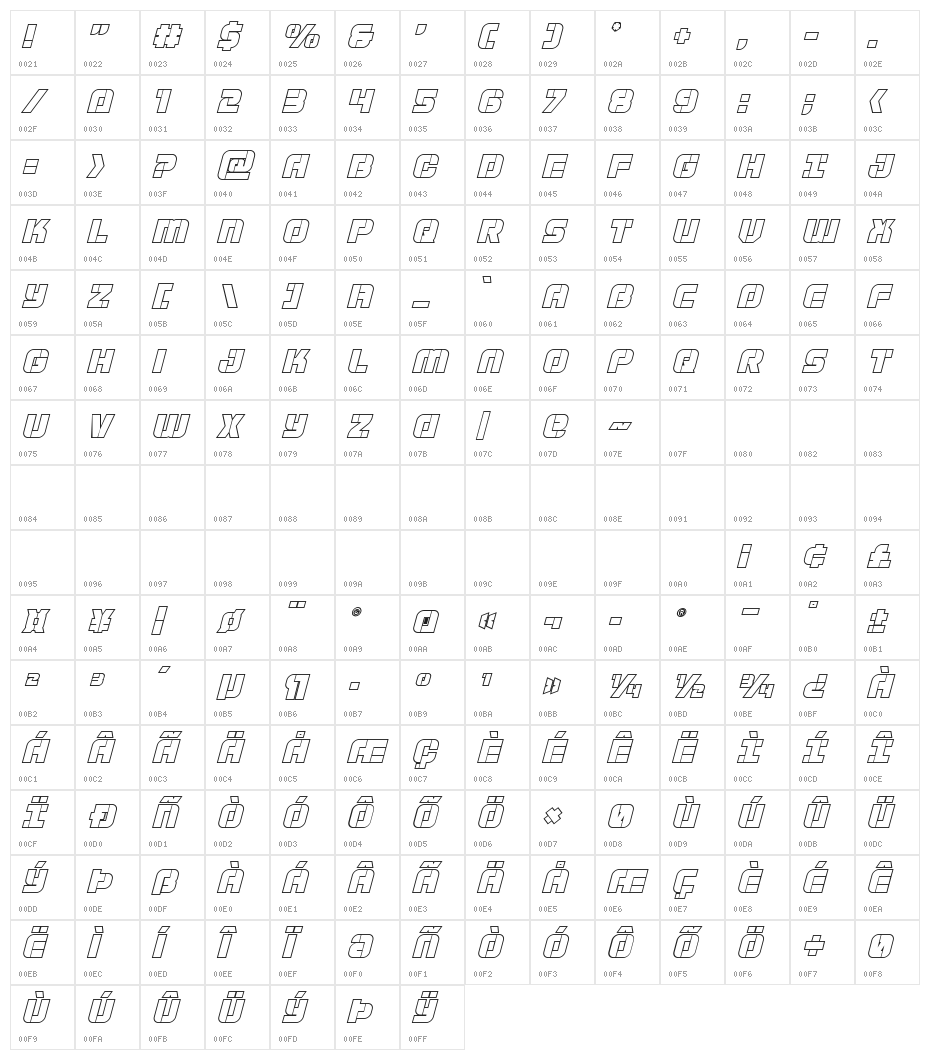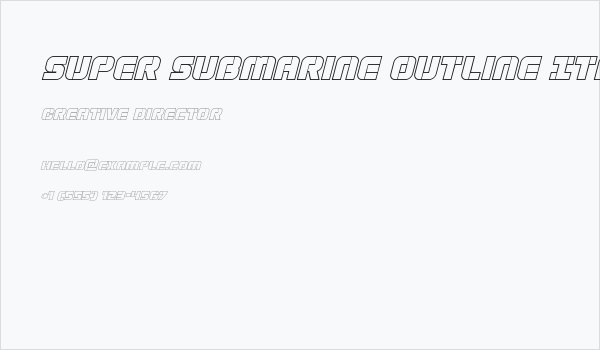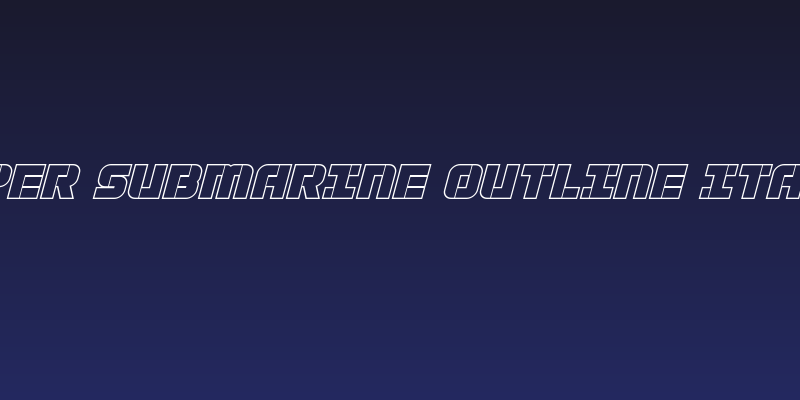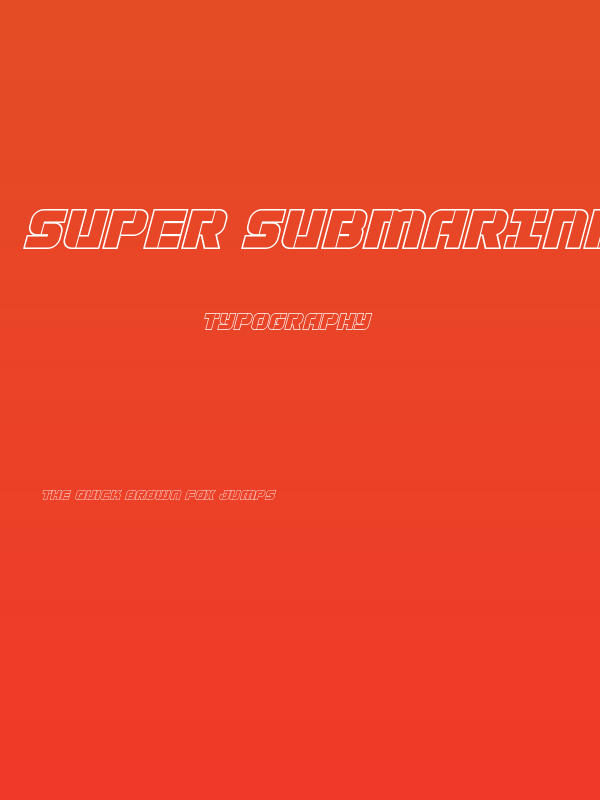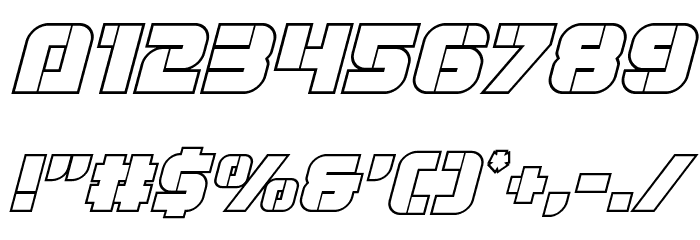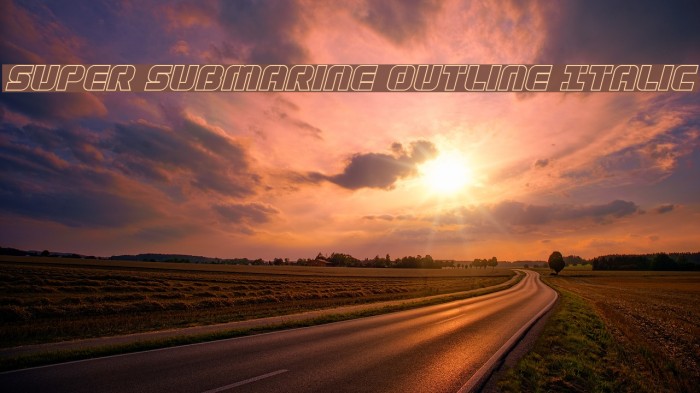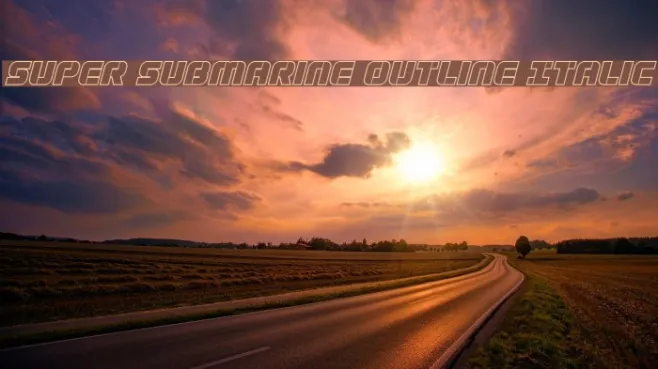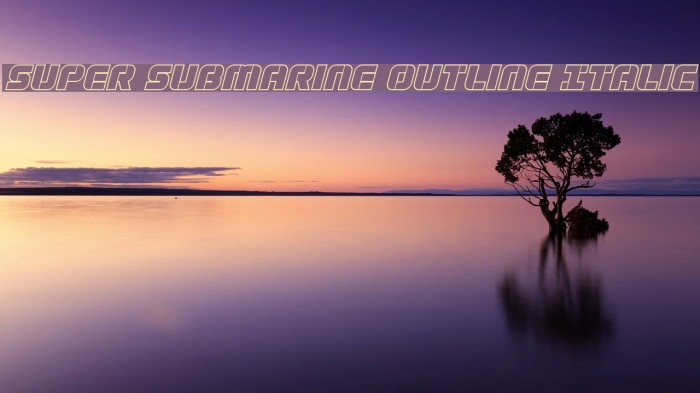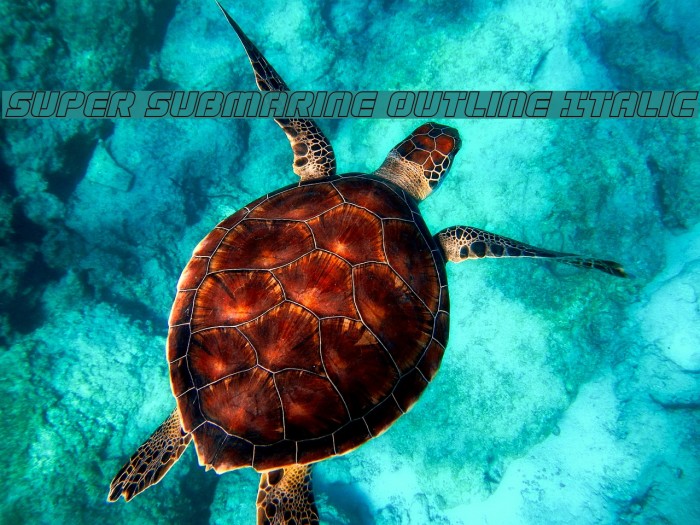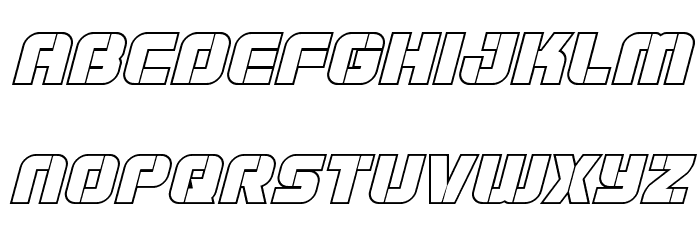
Super Submarine Outline Italic Font
Super Submarine Outline Italic Description
This font features a bold, geometric outline style with a distinct italic slant, giving it a dynamic and modern appearance. The characters are constructed with clean, sharp lines and a uniform stroke width, creating a cohesive and structured look. The uppercase and lowercase letters maintain a consistent design, while the numerals and special characters complement the overall aesthetic. The outline effect adds a sense of depth and dimension, making it suitable for eye-catching designs. Its futuristic and technical vibe makes it ideal for projects that require a standout, contemporary typeface.
| Proposed Projects | Ideal for futuristic branding, tech-related designs, posters, and digital media. |